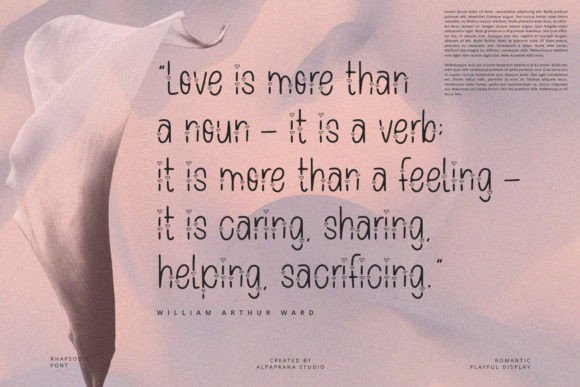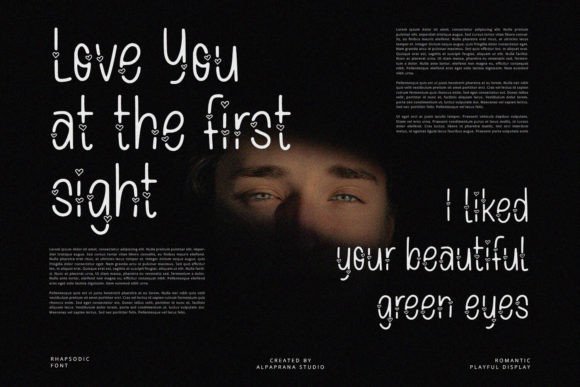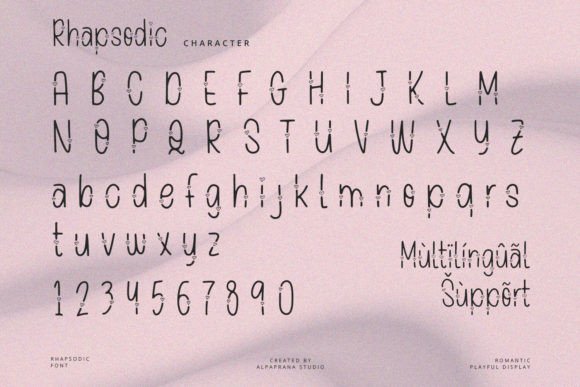
Introduction to Rhapsodic Font
Have you ever stumbled upon a font that instantly sparks an idea for your next creative project? For designers, this moment is priceless. It’s the thrill of the hunt, the rush of inspiration, and the joy of bringing a vision to life. For us, that moment came when we discovered the Rhapsodic Font – a stunning display font that effortlessly blends romance and modernity.
Perfect for logotypes, headlines, and brand identities, the Rhapsodic Font is a design resource that’s sure to elevate your creative projects. Whether you’re working on a corporate identity, a music poster, or a magazine spread, this high-quality font is the perfect companion. And the best part? It’s available for free download, making it an accessible and valuable addition to any designer’s toolkit.
With its transparent background and elegant lines, the Rhapsodic Font is a versatile design element that’s sure to leave a lasting impression. So why wait? Dive into the world of Rhapsodic Font and discover a new level of creative expression.
Key Features of Rhapsodic Font
- The Rhapsodic Font is a high-quality design resource, ideal for creative projects requiring a unique touch.
- This font family includes 5 styles, ranging from 100 to 900, providing a wide range of design options.
- With its unique, hand-drawn design, Rhapsodic Font adds a touch of elegance and sophistication to any creative project.
Honest Review: Rhapsodic Font
I recently stumbled upon the Rhapsodic Font, a design resource that caught my attention. As a designer, I’m always on the lookout for high-quality fonts that can elevate my creative projects.
Here’s what works well about the Rhapsodic Font: ✨ It’s a free download, which is always a plus. The font is also highly customizable, making it a great addition to any design project. I appreciate the transparent background, which allows for seamless integration into any design.
Some of the key features of the Rhapsodic Font include:
- Customizable to suit your design needs
While the Rhapsodic Font is a great addition to any design resource, I do have a few limitations to note: ⚠️ The font may not be suitable for all design projects, particularly those requiring a more traditional or formal aesthetic. Additionally, some users may find the font’s complexity overwhelming.
Overall, I’m impressed with the Rhapsodic Font and would definitely recommend it to designers looking for a high-quality, customizable font for their creative projects.
Tips for Getting the Most Out of Rhapsodic Font
To get the most out of the Rhapsodic Font, experiment with different font sizes, colors, and combinations to create unique and eye-catching designs. Use the font’s transparent background to add depth and texture to your design.
The Rhapsodic Font is ideal for a variety of creative projects, including graphic design, digital art, and typography. Use the font to create logos, business cards, and other marketing materials that require a touch of elegance and sophistication.